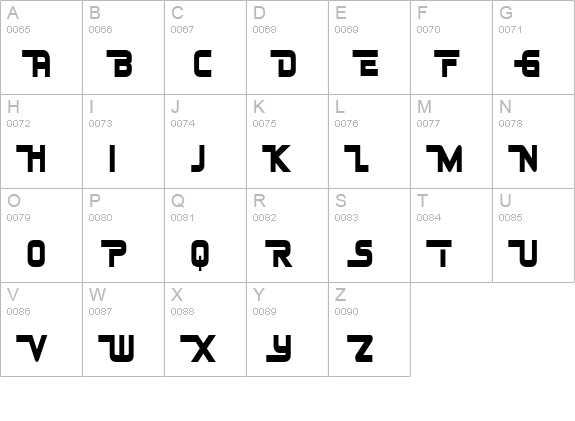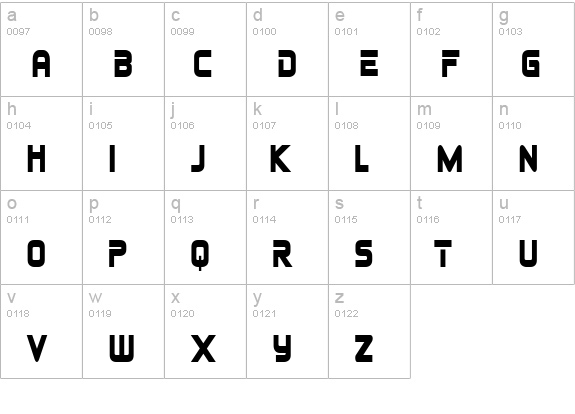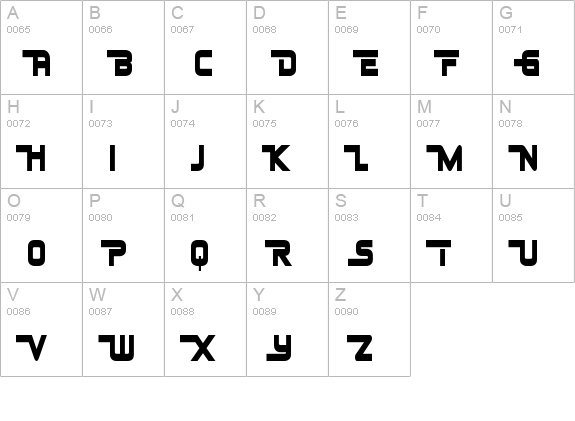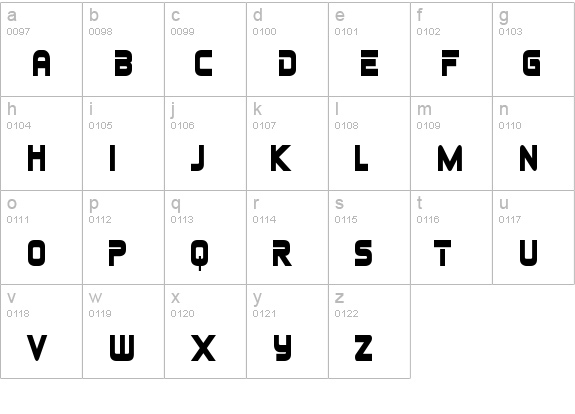
Johnny Fever Font Details
The Johnny Fever font is a playful and quirky typeface that exudes a fun and energetic vibe. With its bold strokes and whimsical curves, this font is perfect for adding a touch of personality to your designs. Whether you're working on a poster, logo, or social media graphics, Johnny Fever will surely make your text stand out. Best of all, Johnny Fever is available for free download at FontsMarket.com. Simply head over to the website and grab this font to add a splash of creativity to your projects without spending a dime. Don't miss out on the opportunity to enhance your designs with the unique charm of Johnny Fever.